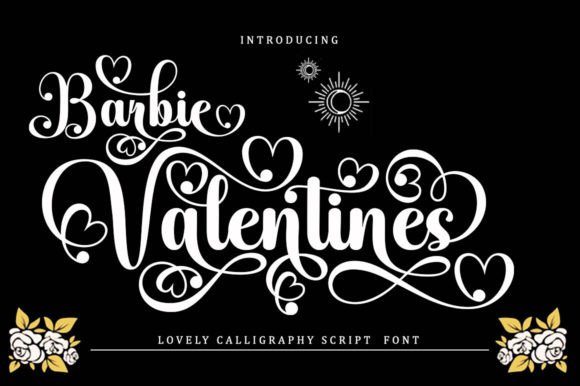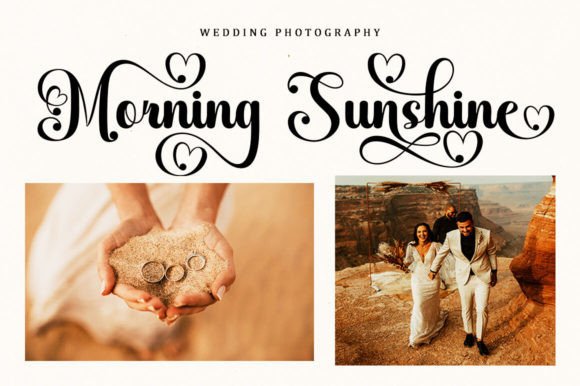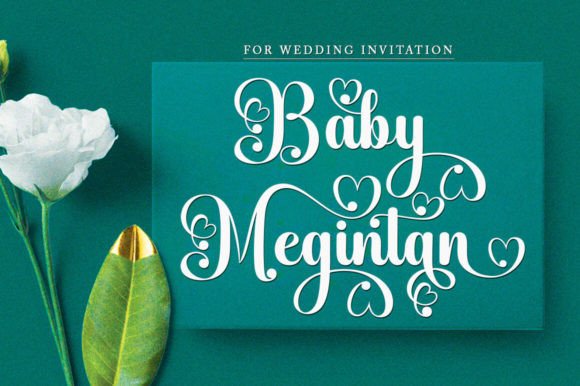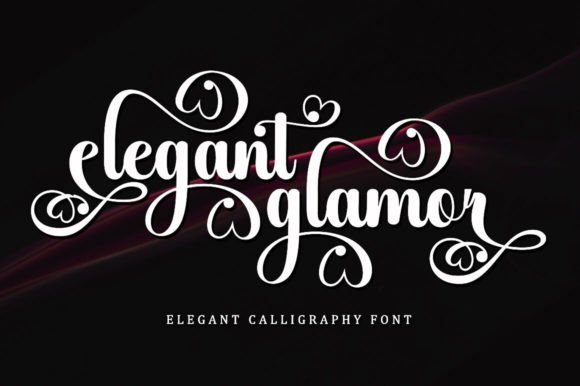
Barbie Valentines Font: Elegant Calligraphy Script for Wedding Design
About the Barbie Valentines Font
Let us introduce you to Barbie Valentines Font, where timeless design meets modern craftsmanship. Step into a world of elegance with Barbie Valentines, a calligraphy script font dripping with timeless sophistication. What makes Barbie Valentines truly irresistible is its intricate blend of femininity and grace, integrated with a romantic flair that effortlessly radiates beauty. Easy-to-read letter connections make it remarkably readable, while the range of styles offered for various letters lends creative versatility to your work.
Experience modern-day appeal with Barbie Valentines, which are suitable for a variety of formal purposes. Infuse this classic charm into everything from invitations, labels, restaurant menus to logos, fashion brands and cosmetics. It’s also perfect for literature, whether it’s stationery, books, magazines, novels, or heartfelt greeting and wedding cards. With its unique aesthetic, Barbie Valentines are a top choice for packaging, labels and advertising, guaranteed to be a top attraction in any context.
Barbie Valentines Font Usage Examples
Barbie Valentines Font Example